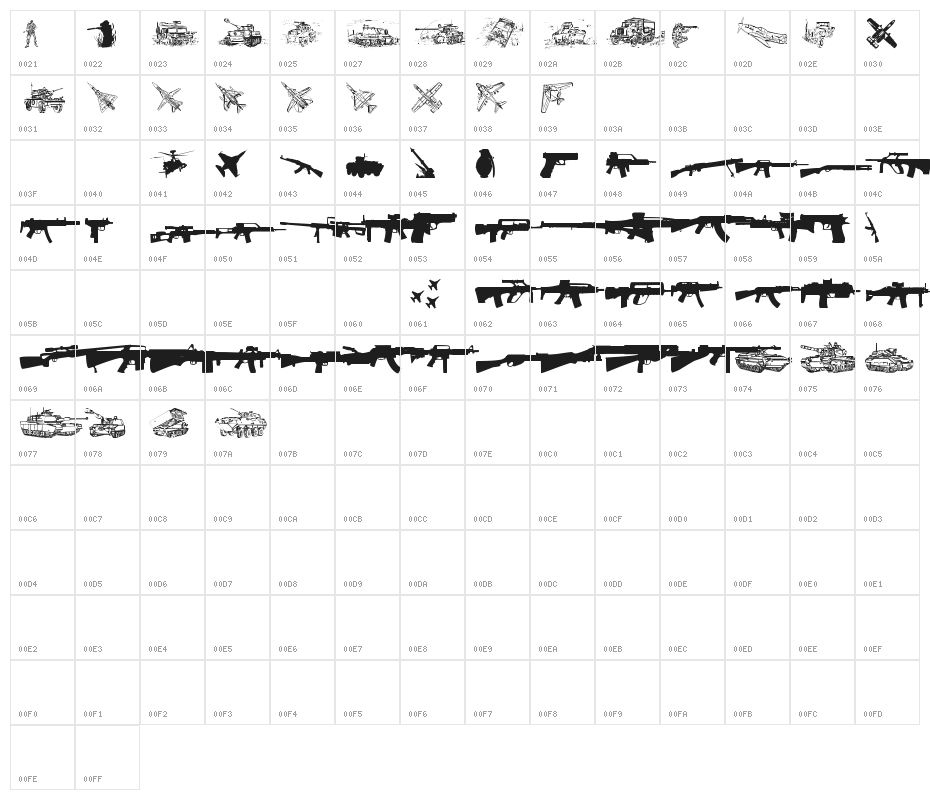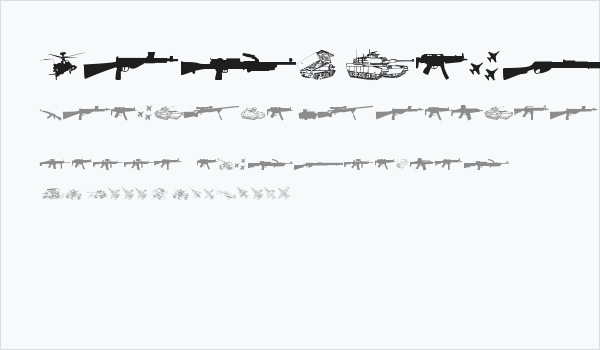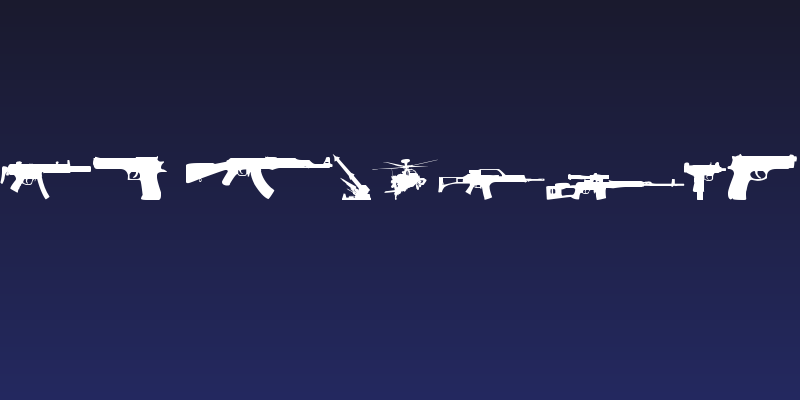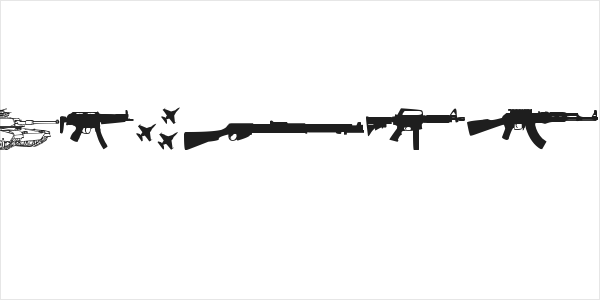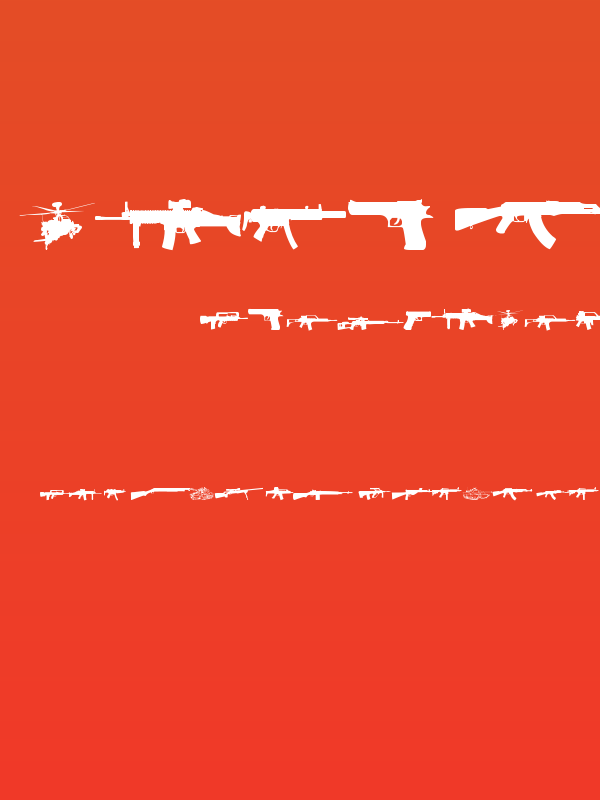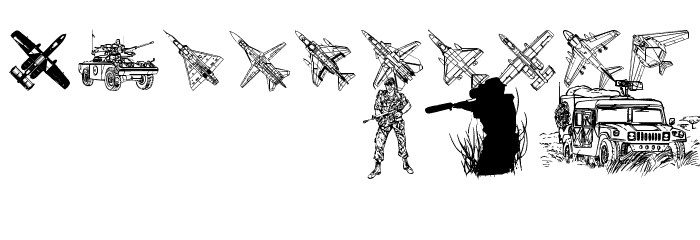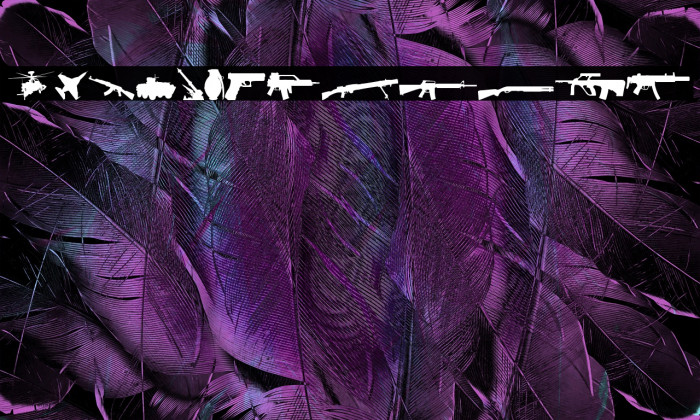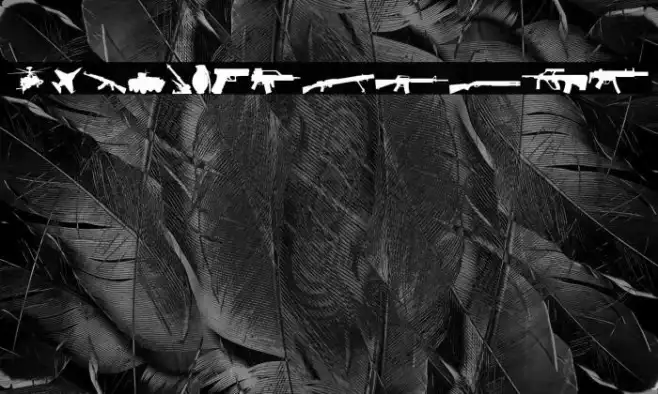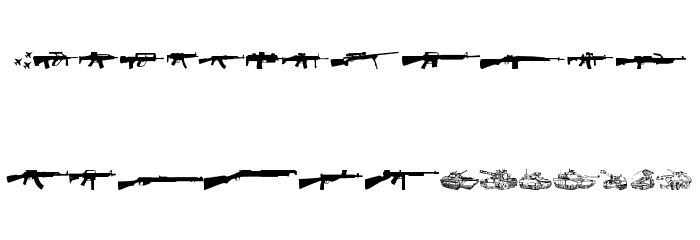
Army weapons tfb Font
Army weapons tfb Description
A decorative dingbat font featuring silhouettes and detailed illustrations of military equipment, including helicopters, tanks, guns, jets, soldiers, and vehicles. Each character is replaced by a unique weapon or military-themed icon, with varying levels of detail and complexity.
| Overall Style | Decorative, Thematic |
| Use Case | Icons, Decorative elements, Themed graphics |
| Proposed Projects | Posters, video game interfaces, educational materials, themed party invitations, military history presentations. |